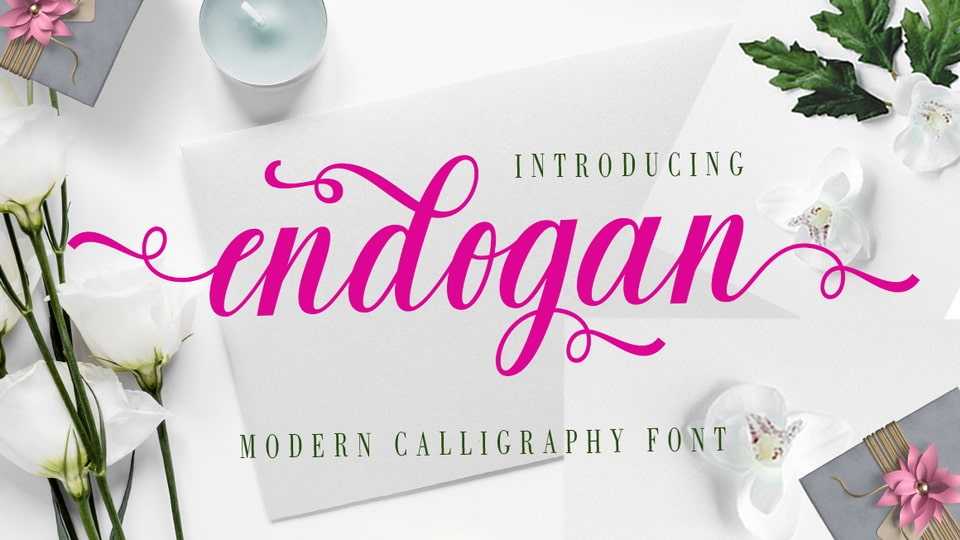
Download Endogan Script font, a stylish handwritten calligraphy font that combines copperplate and contemporary style with a dancing baseline, classic and elegant touch.